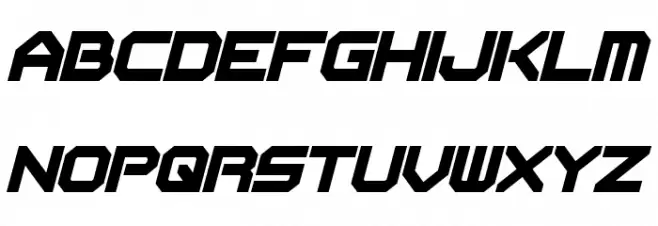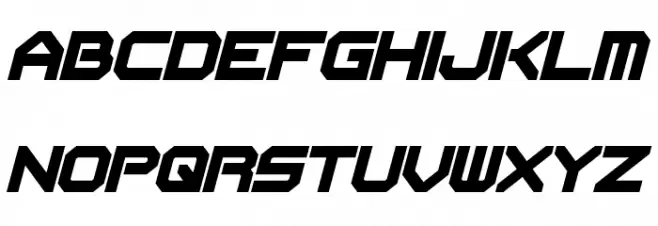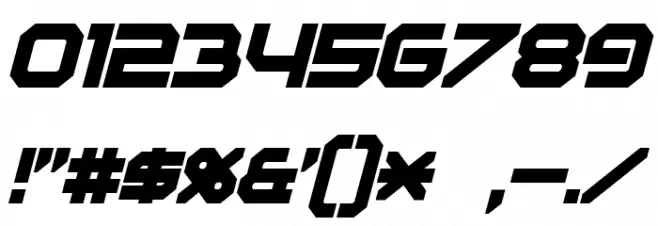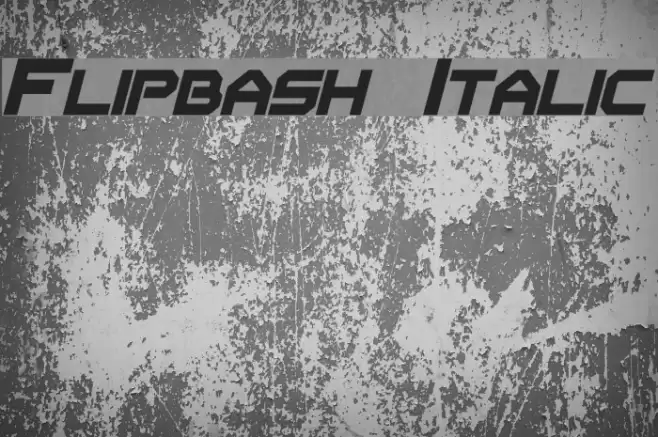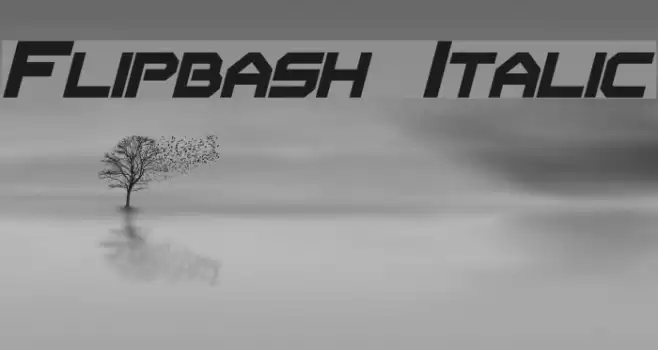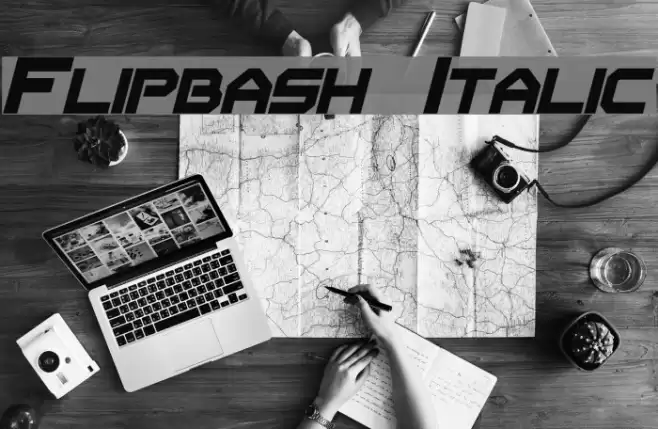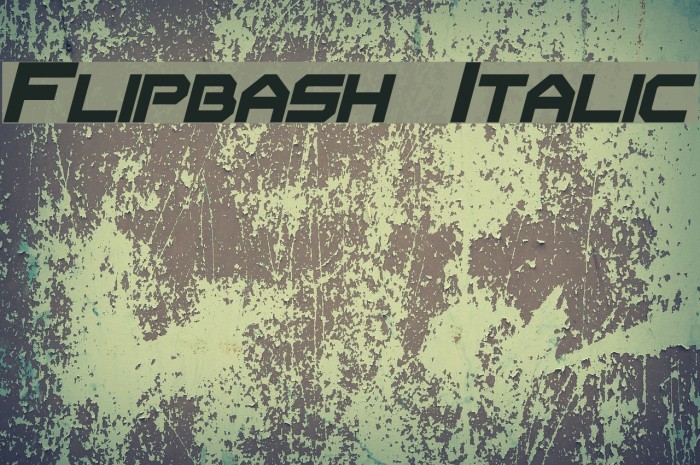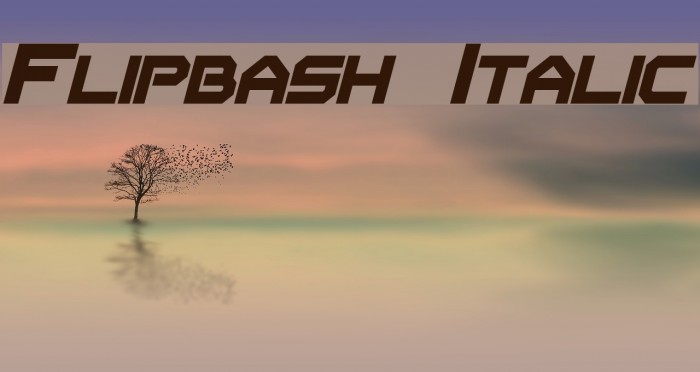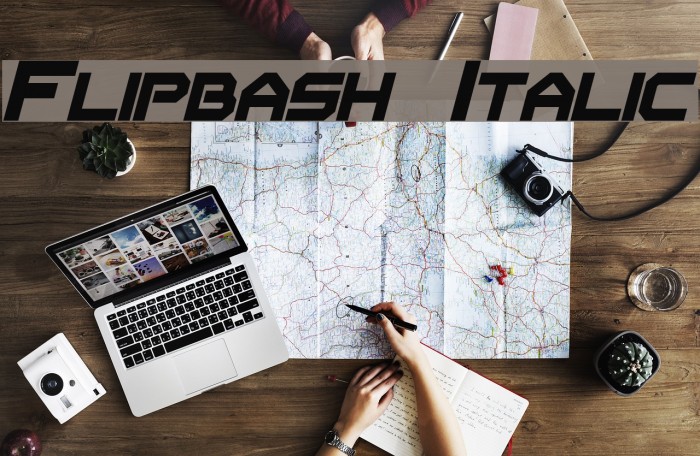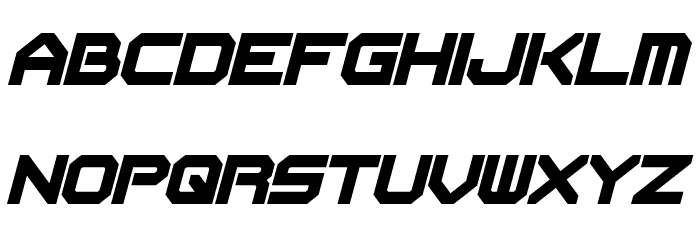
Flipbash Italic
This font features a bold, geometric design with angular lines and a strong italic slant, giving it a dynamic and futuristic appearance. The characters are constructed with sharp edges and a consistent stroke width, creating a uniform and cohesive look. The uppercase and lowercase letters maintain a similar style, with the lowercase being slightly smaller in size. The numbers and special characters follow the same angular and bold design, ensuring consistency across all glyphs. This font is highly legible and makes a strong visual impact, suitable for attention-grabbing designs.
A bold, geometric italic font with sharp angles and a futuristic style.
- Proposed Projects: Ideal for sci-fi themed projects, video game titles, technology branding, and dynamic posters.
- Overall Style: Futuristic
- Use Case: Headlines, Logos, Posters